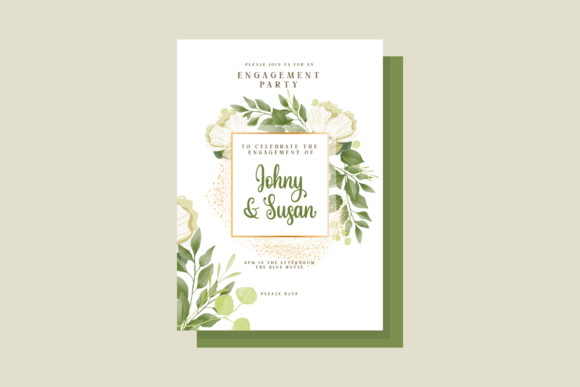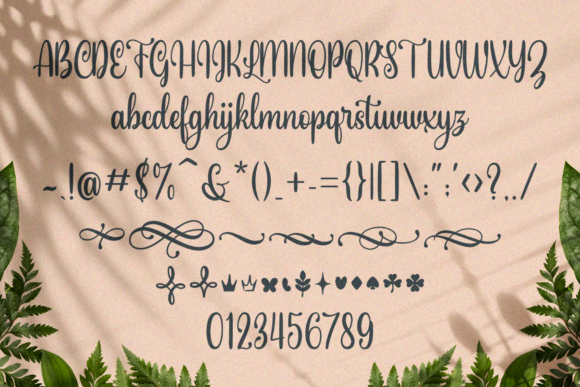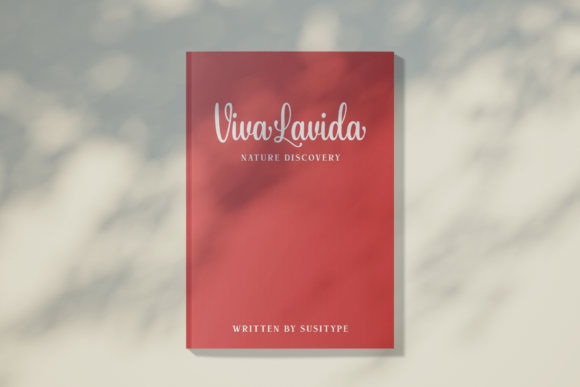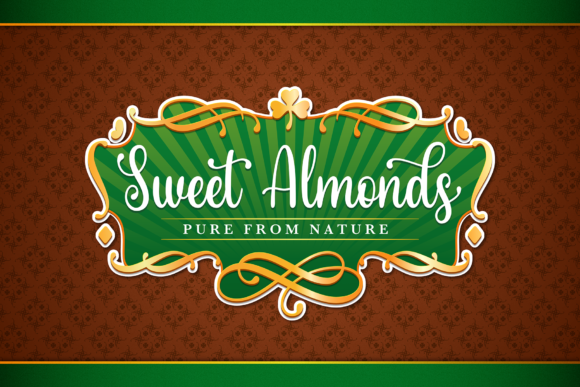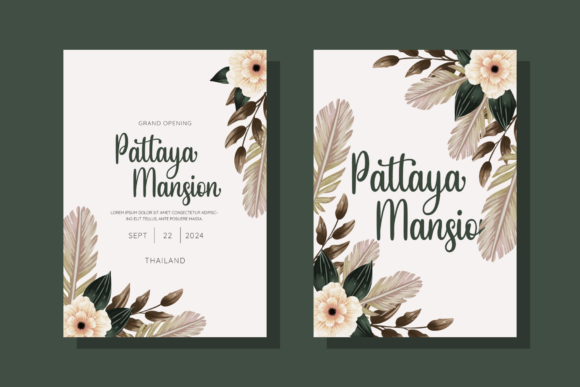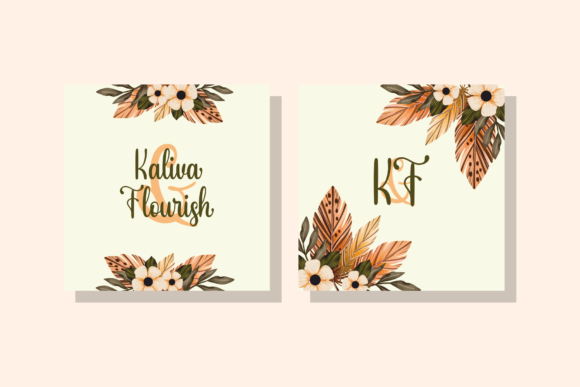
Bellefonte Font: Elevate Your Designs with Elegance and Sophistication
In the world of typography, a font can make or break the aesthetic of a design. For those seeking to infuse their creations with a touch of elegance and refinement, the Bellefonte font is an exquisite choice. This lovely and delicate script font is specifically crafted to provide a beautiful and refreshing look to various designs, making it a perfect fit for crafters, designers, and anyone looking to add a dash of sophistication to their work.
What Makes Bellefonte Font Stand Out?
Bellefonte is not just another script font; it’s a meticulously designed typeface that exudes class and poise. Its delicate strokes and elegant ligatures make it an ideal choice for projects that demand a high level of sophistication. Whether you’re working on a branding project, crafting beautiful wedding invitations, or designing stylish blog headers, Bellefonte is sure to impress.
One of the standout features of the Bellefonte font is its PUA (Private Use Area) encoding. This means that users can easily access all the amazing glyphs and ligatures without any hassle. PUA encoding allows for straightforward access to the extended character set, making it simple to incorporate the font’s beautiful swashes, alternates, and other special characters into your designs. This feature is particularly beneficial for designers who want to experiment with different styles and variations without getting bogged down in complicated font management.
The versatility of the Bellefonte font makes it suitable for a wide range of design projects. Here are a few examples of how you can use this elegant font:
- Branding and Logos: Create a lasting impression with a logo that embodies elegance and sophistication. Bellefonte’s unique character set allows for the creation of a distinctive brand identity that stands out from the crowd.
- Wedding and Event Stationery: Add a touch of romance and glamour to your wedding invitations, save-the-date cards, and other event materials with Bellefonte’s beautiful script.
- Blog and Website Headers: Elevate your blog or website with a stylish header that showcases Bellefonte’s delicate charm. This font is sure to captivate your audience and set the tone for your online presence.
- Packaging and Product Design: Incorporate Bellefonte into your packaging design to give your products a luxurious and high-end feel.
Why Choose Bellefonte Font?
With so many fonts available, why should you choose Bellefonte for your design projects? Here are a few compelling reasons:
- Elegant and Refined: Bellefonte’s delicate script and elegant ligatures make it an excellent choice for designs that require a touch of sophistication.
- Easy to Use: The font’s PUA encoding ensures that you can access all the glyphs and ligatures with ease, making it simple to incorporate into your designs.
- Versatile: Bellefonte is suitable for a wide range of design projects, from branding and logos to wedding stationery and blog headers.
- High-Quality: As a professionally crafted font, Bellefonte is designed to deliver high-quality results that meet the demands of professional designers.
In conclusion, the Bellefonte font is an exceptional choice for designers and crafters seeking to add a touch of elegance and sophistication to their work. With its delicate script, elegant ligatures, and PUA encoding, this font is sure to elevate your designs to new heights. Whether you’re working on a branding project, wedding stationery, or blog headers, Bellefonte is a versatile and high-quality font that will help you achieve your design goals.